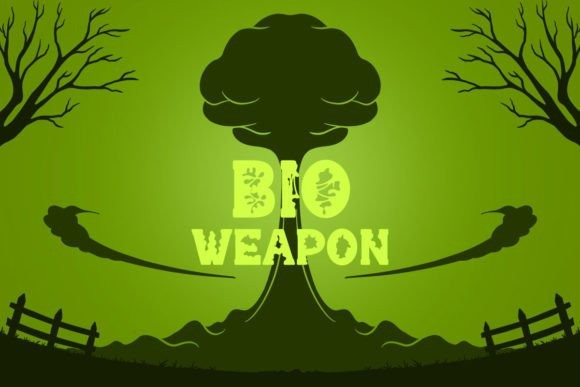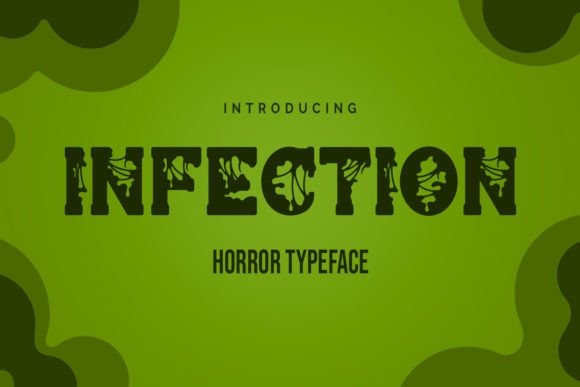
Infection Horror Font
Infection Horror Font, is a horror Halloween font. Designed with a zombie virus touch will give a creepy impression. This creative Halloween-themed font is ideal for labels, posters, or anything else that requires a creepy touch.